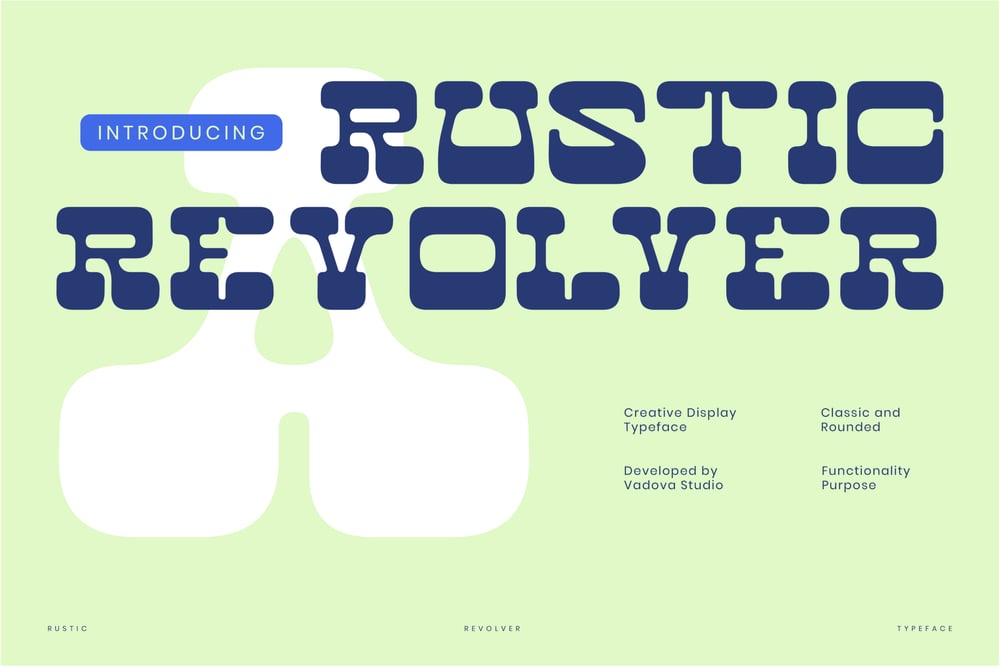
Rustic Revolver
Rustic Revolver font
Rustic Revolver Font Family was designed by published by Vadova Std. Rustic Revolver contains 1 styles and family package options. Elevate your designs with Rustic Revolver Font, a font perfect for adding elegance and style to your projects. Whether it’s for quotes, logotypes, magazine headers, or more, this versatile typeface ensures your text stands out beautifully.